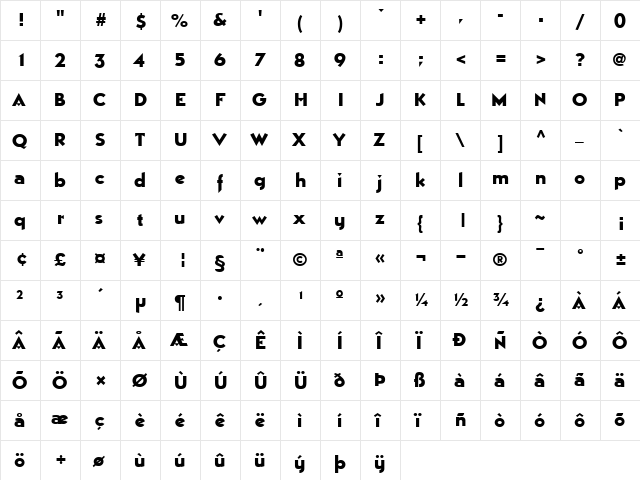
ZaucheSSK Regular
Design Context for ZaucheSSK Typeface
ZaucheSSK offers clean, dependable letterforms without strong stylistic allegiance, making it a practical choice for designers who need flexibility.
Pro Tip: Use ZaucheSSK in both headline and body roles to test its range before committing to a single application.